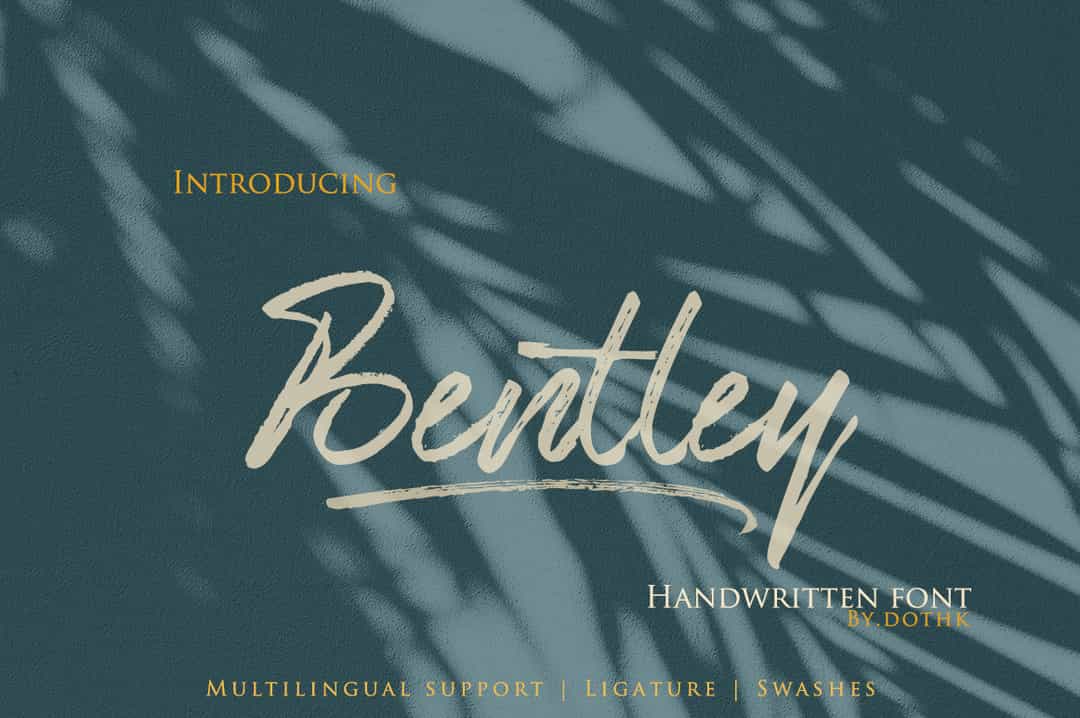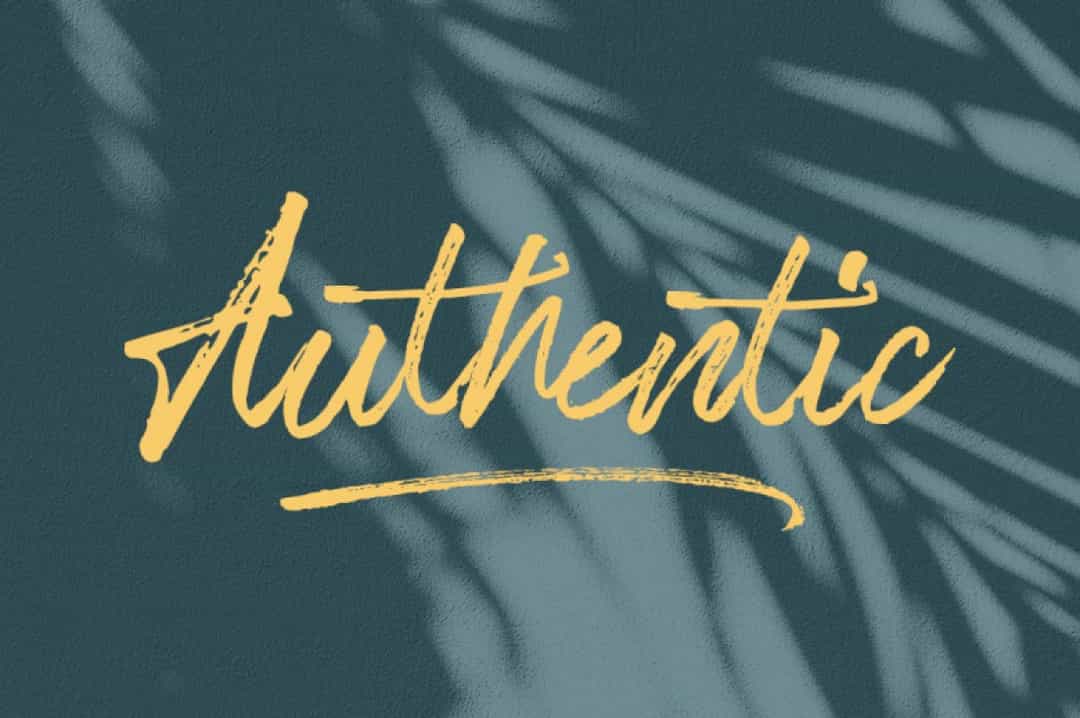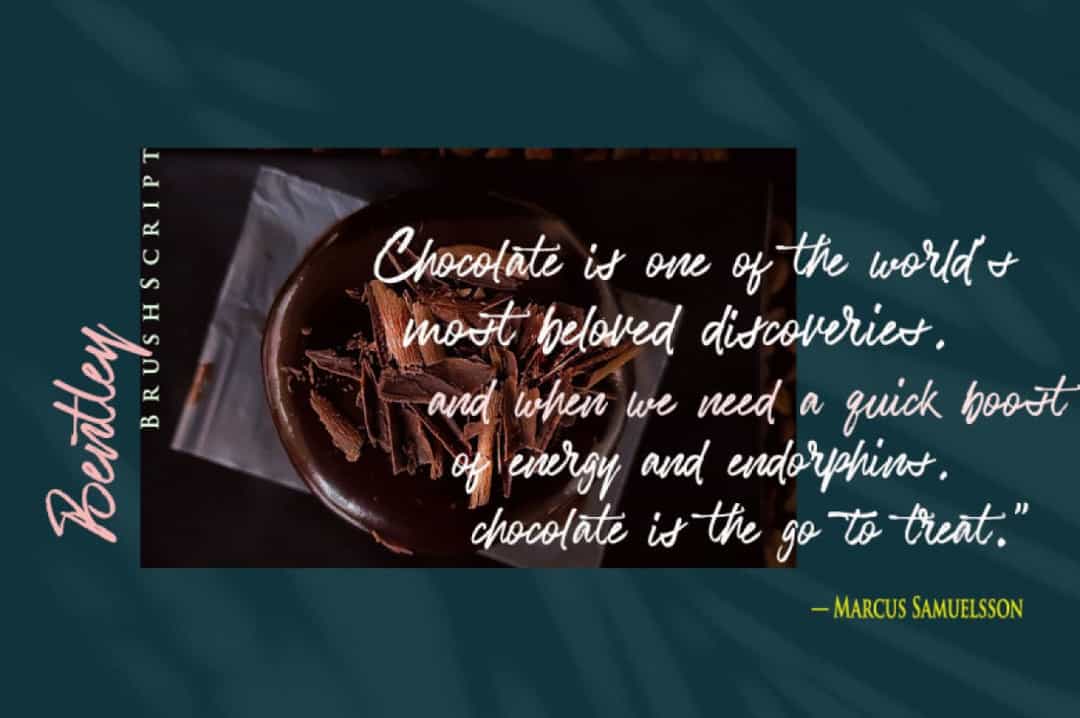
Bentley is an elegant and charming handwritten script font created using a brush pen. Playful yet romantic, Bentley makes the ideal font choice for wedding invitations and cards as well as other designs that require romantic accents!